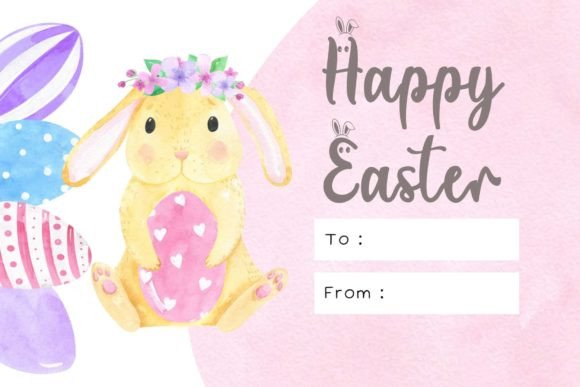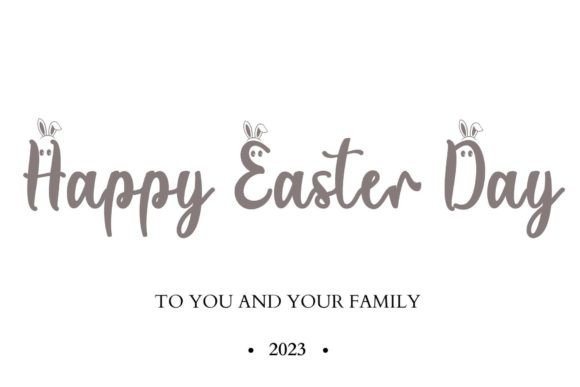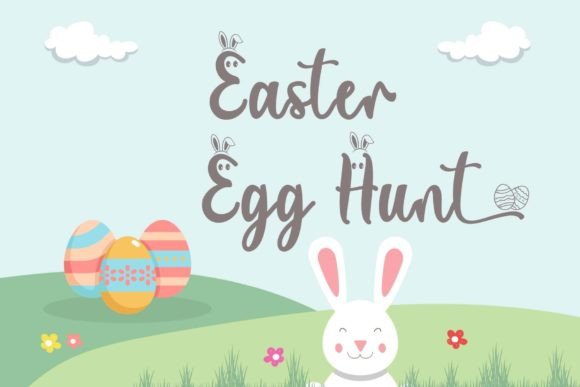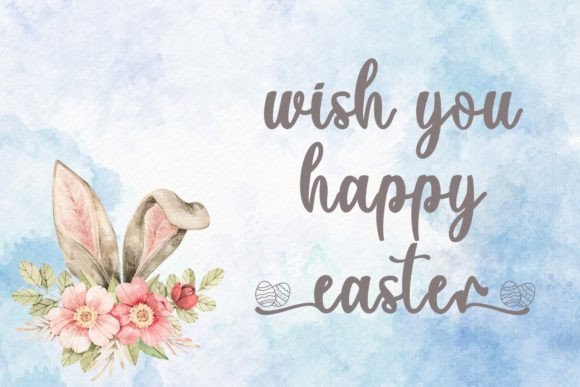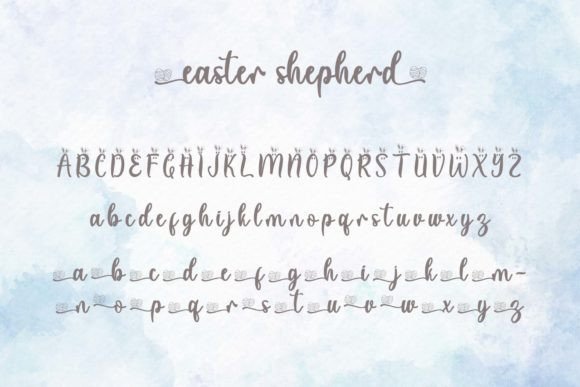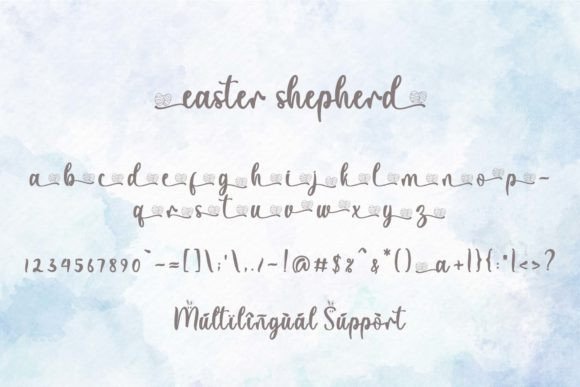
Discover the Magic of Easter Shepherd Font
As a designer, have you ever found yourself staring at a blank canvas, searching for the perfect font to bring your creative vision to life? The moment when the words start flowing, and the design begins to take shape, is pure magic. And that’s exactly what happens when you introduce the Easter Shepherd Font into your project.
This charming and elegant script font is a game-changer for designers who want to add a touch of whimsy and personality to their designs. With delicate rabbit ears perched atop certain letters, the Easter Shepherd Font is sure to delight your audience and make your designs stand out from the crowd. Whether you’re creating invitations, social media graphics, or branding materials, this font is a must-have for anyone who wants to add a touch of enchantment and beauty to their work.
Easter Shepherd Font Key Features
• Font Family: Easter Shepherd Font is a unique, handwritten font designed for various applications.
• Character Set: Includes a wide range of characters, including uppercase and lowercase letters, numbers, and punctuation marks.
• Unique Characteristics: The Easter Shepherd Font features a beautiful, hand-drawn design with subtle imperfections, giving it a personal and artistic feel.
Easter Shepherd Font Review
Overall, I think the Easter Shepherd Font is a unique and quirky addition to any design project. It’s ✨ perfect for Easter-themed designs, but can also work well in other spring-inspired projects.
The font’s bold, cursive script is reminiscent of traditional Easter cards and decorations. The ✨ attention to detail in the design is impressive, with intricate flourishes and decorations that add to the font’s charm.
Some potential limitations to consider are:
• ⚠️ Limited character set: The Easter Shepherd Font may not have the full range of characters and symbols needed for a comprehensive design project.
• ⚠️ May not be suitable for all audiences: The font’s Easter theme may not be suitable for designs intended for other holidays or cultural events.
• ⚠️ Potential compatibility issues: Some users may experience issues with the font’s compatibility across different devices or operating systems.
Overall, I think the Easter Shepherd Font is a fun and creative addition to any design project. While it may have some limitations, it’s ✨ well-suited for Easter-themed designs and can add a touch of whimsy to any project.
The Easter Shepherd Font is ideal for:
• Easter-themed invitations and party decorations
• Social media graphics and posts
• Custom Easter-themed graphics and banners
• Easter-themed presentations and reports